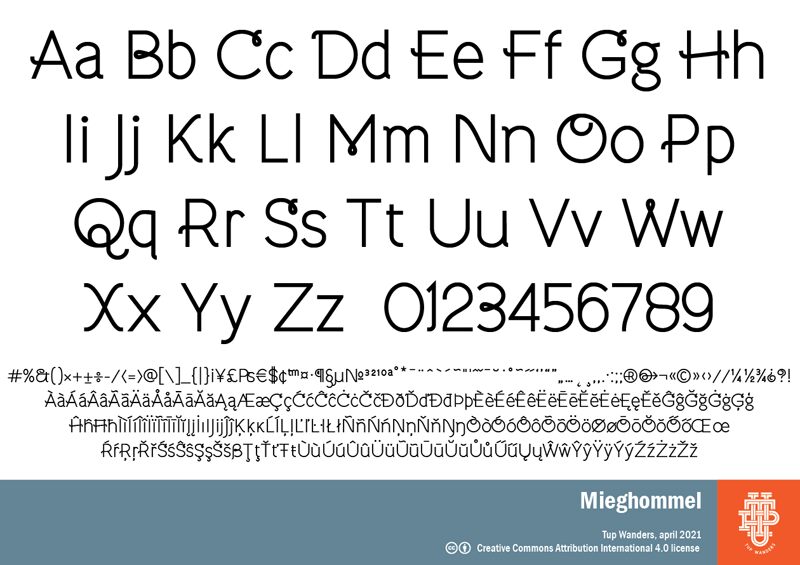
Mieghommel
Mieghommel font, designed by Tup Wanders, features a light and minimalist aesthetic with a modern geometric touch. This unique typeface incorporates subtle decorative elements, such as small loops that add character while maintaining a clean and versatile appearance. As a free sans serif font, it is designed for simple and straightforward displays.